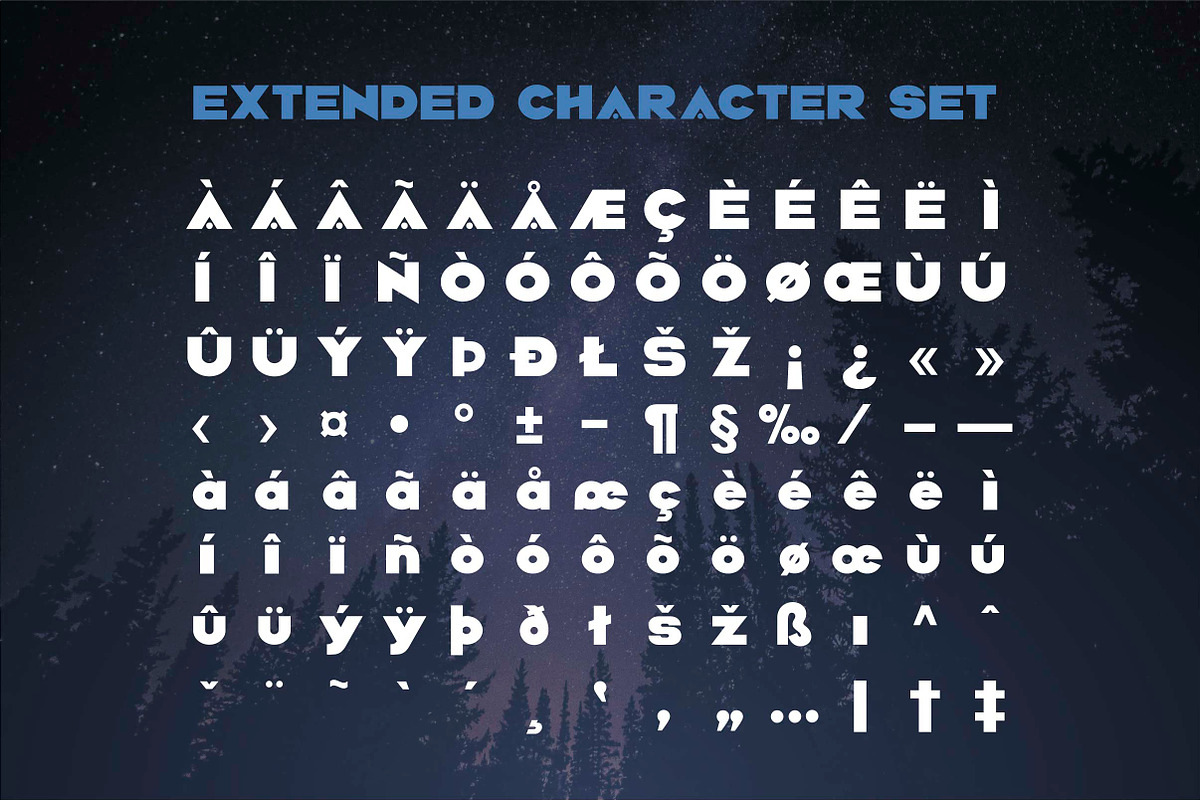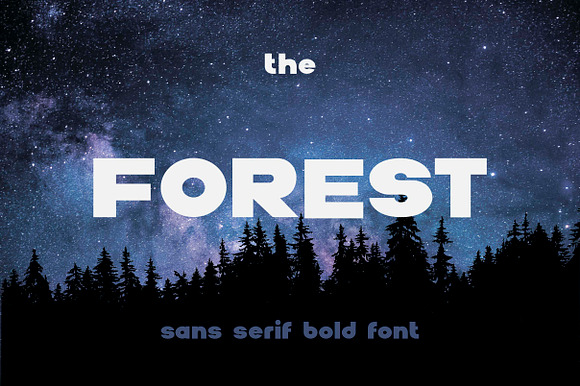
The Forest. Sans serif bold otf font
The Forest. Sans Serif Bold Otf Font by Fractal is a font selected for branding, posters, packaging, typography.
The Forest. Sans serif bold otf font by Fractal fonts & graphics fits naturally into Branding, posters, packaging, typography.